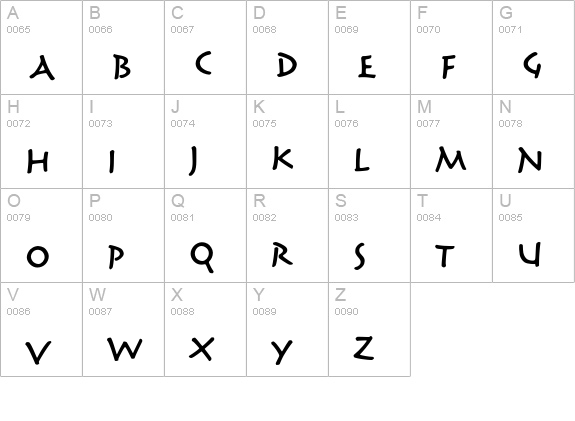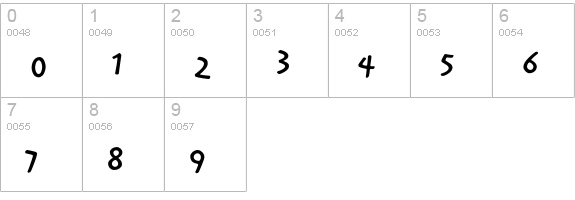
Reliq Std Semibold ExtraActive Font Details
Reliq Std Semibold ExtraActive is a sub-bold, structured variant in the Reliq typeface family \xE2\x80\x94 well suited to sub-headlines and emphasised passages.
Reliq Std Semibold ExtraActive is a font that exudes confidence and elegance. Its bold and assertive strokes give your designs a strong presence, making it perfect for headlines, titles, and logos. This font strikes the perfect balance between modernity and tradition, making it a versatile choice for a wide range of projects. With its increased thickness and slightly condensed letterforms, Reliq Std Semibold ExtraActive commands attention and adds a touch of sophistication to any design. Its strong and powerful appearance is complemented by its subtle curves and refined details, creating a harmonious visual experience. One of the best things about Reliq Std Semibold ExtraActive is that it is freely available to download at FontsMarket.com. This means that you can easily access this exceptional font and integrate it into your design projects without any hassle. Whether you are a professional designer or a casual enthusiast, having access to this font for free is a valuable opportunity to enhance your creative ventures. The versatility of Reliq Std Semibold ExtraActive allows it to be used across different mediums, from print to digital. Its legibility ensures that your message is delivered with clarity and impact, while its unique aesthetic qualities make it stand out from the crowd. No matter the size or scale of your design, this font will retain its visual integrity and remain captivating. Reliq Std Semibold ExtraActive is a font that embodies strength, elegance, and versatility. Its freely available download at FontsMarket.com is a testament to its accessibility and commitment to the design community. So whether you are working on a branding project, editorial layout, or any other creative endeavor, make sure to take advantage of this exceptional font and elevate your designs to new heights.